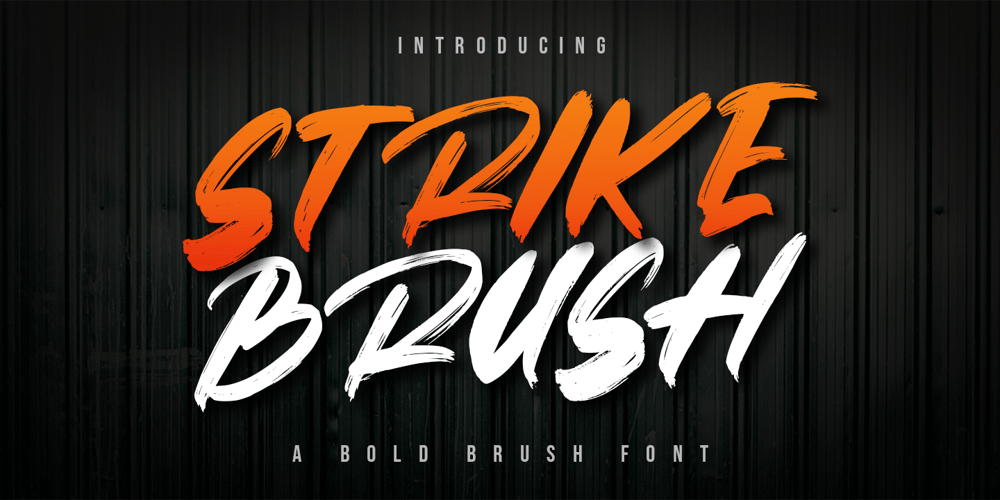
Strike Brush Font Family was designed by Hayinah and published by Rockboys Studio. Strike Brush contains 1 styles and family package options. Strike Brush is a new modern brush font, incredibly adaptable to all sorts of designs. It is suitable for any branding, product packaging, invitation, quote, t-shirt, label, poster, logo that you wish to create.PUA encoded = Accessible in the Adobe Illustrator, Adobe Photoshop, Adobe InDesign, even work on Microsoft Word. PUA Encoded Characters – Fully accessible without additional design software.